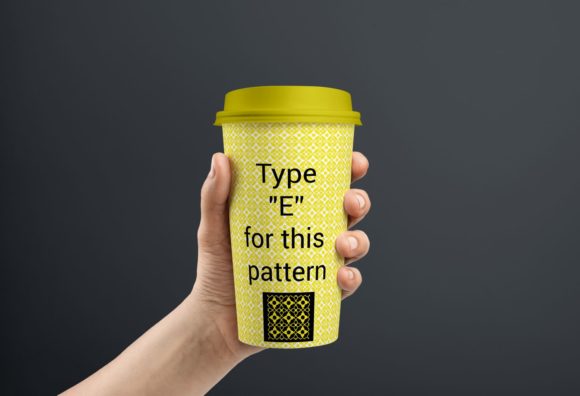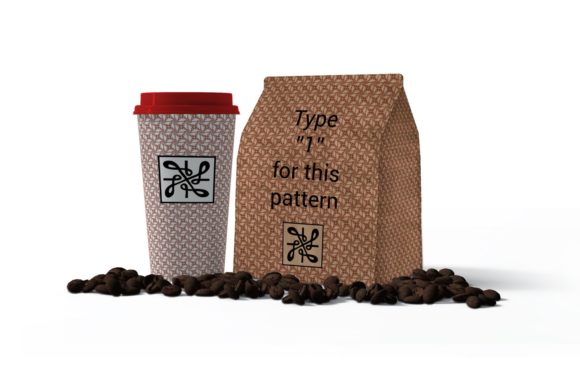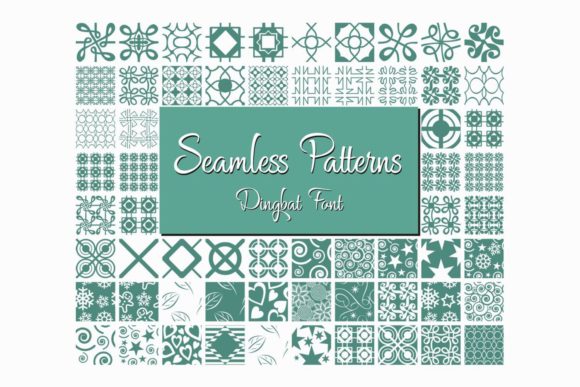
Seamless Patterns Font
About Seamless Patterns Font
The Seamless Patterns Dingbat font is an incredible set of seamless patterns that bring a touch of elegance and beauty to any design project. With its repetitive patterns, this typeface is sure to catch the eye of your audience and instantly convey a sense of perfection and precision.
The Seamless Patterns Dingbat font is an incredible asset to any designer’s font library, with its incredibly versatile and wide range of motifs. With its seamless patterns, this typeface can be used in a wide range of projects, from product packaging to cards and wedding invitations. Whether you’re designing a label for a fashion brand or an invitation for a high-end wedding, this typeface is the perfect way to add a touch of elegance and beauty to your design.
The Seamless Patterns Dingbat font is also an ideal choice for any designer looking for a visually striking and memorable typeface. With its repetitive patterns, this typeface has the potential to create a design that stands out from the crowd. Whether you’re designing a label or an invitation, these patterns are sure to create a design that is both visually intriguing and unforgettable.
One of the best ways to use The Seamless Patterns Dingbat font is to create a design with a touch of beauty and elegance. Whether you’re designing a label for a luxury jewelry brand, an invitation for a high-end wedding, or any other project, these patterns are the perfect way to add a touch of style and beauty to your design.
In addition, the patterns in the Seamless Patterns Dingbat font are designed to be repetitive, without being oppressive or overpowering. Whether they are delicate and graceful, or bold and luxurious, these patterns are the perfect way to create a design that is both visually appealing and easy to read.
So if you’re looking for a visually striking and memorable set of patterns that can be used in a wide range of projects, The Seamless Patterns Dingbat font is the ideal choice. With its elegance and beauty, this set of patterns has the potential to create a design that stands out from the crowd and conveys a sense of perfection and luxury.